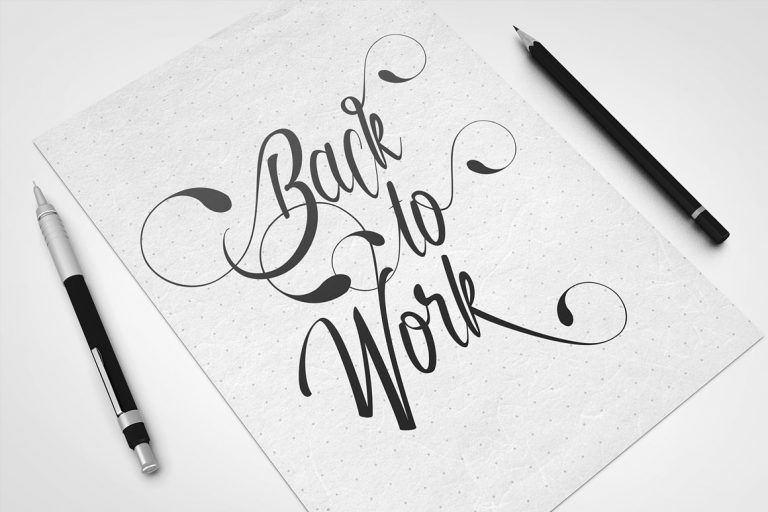
Autumn Flower Script Font
A modern Calligraphy Typeface. Introducing Autumn Flower Font! Autumn Flower designed and shared by thirtypath. Autumn Flower – An elegant and easy-to-read font. Can be used for various purposes.such as headings, logos, wedding invitation, t-shirt, letterhead, signage, label, news, posters, badges etc.